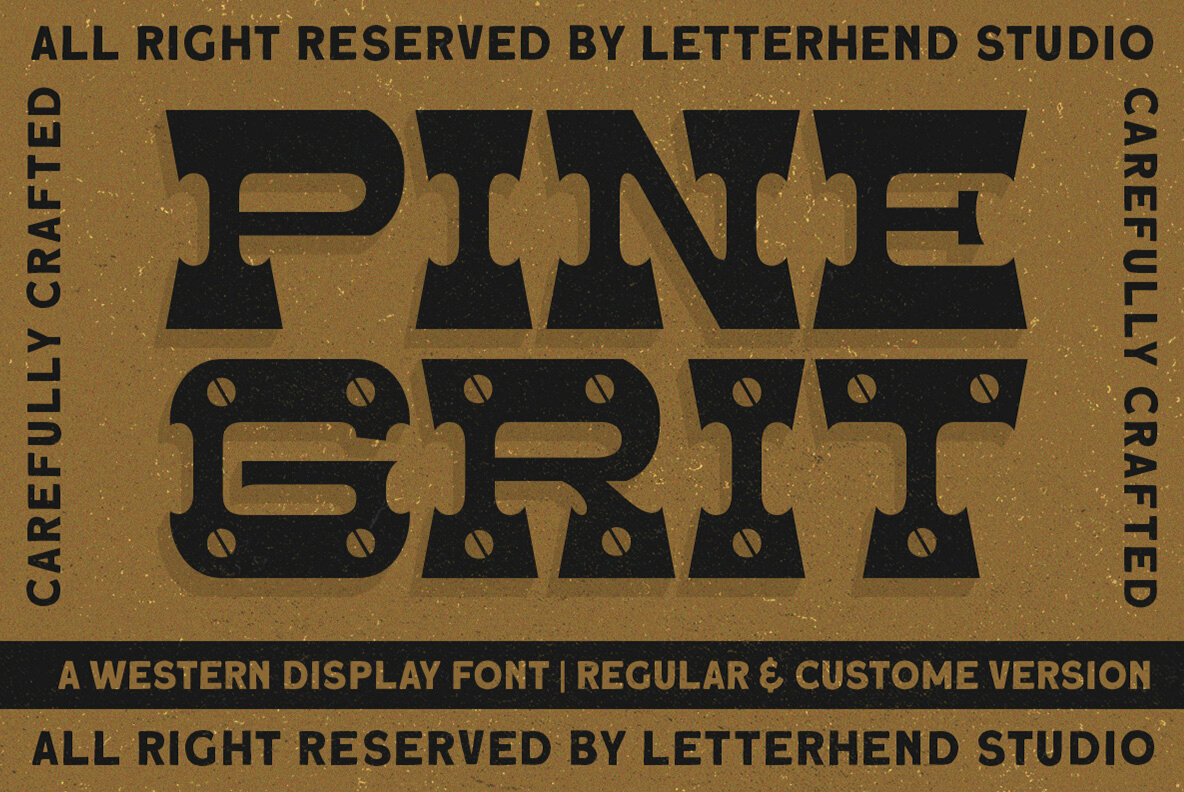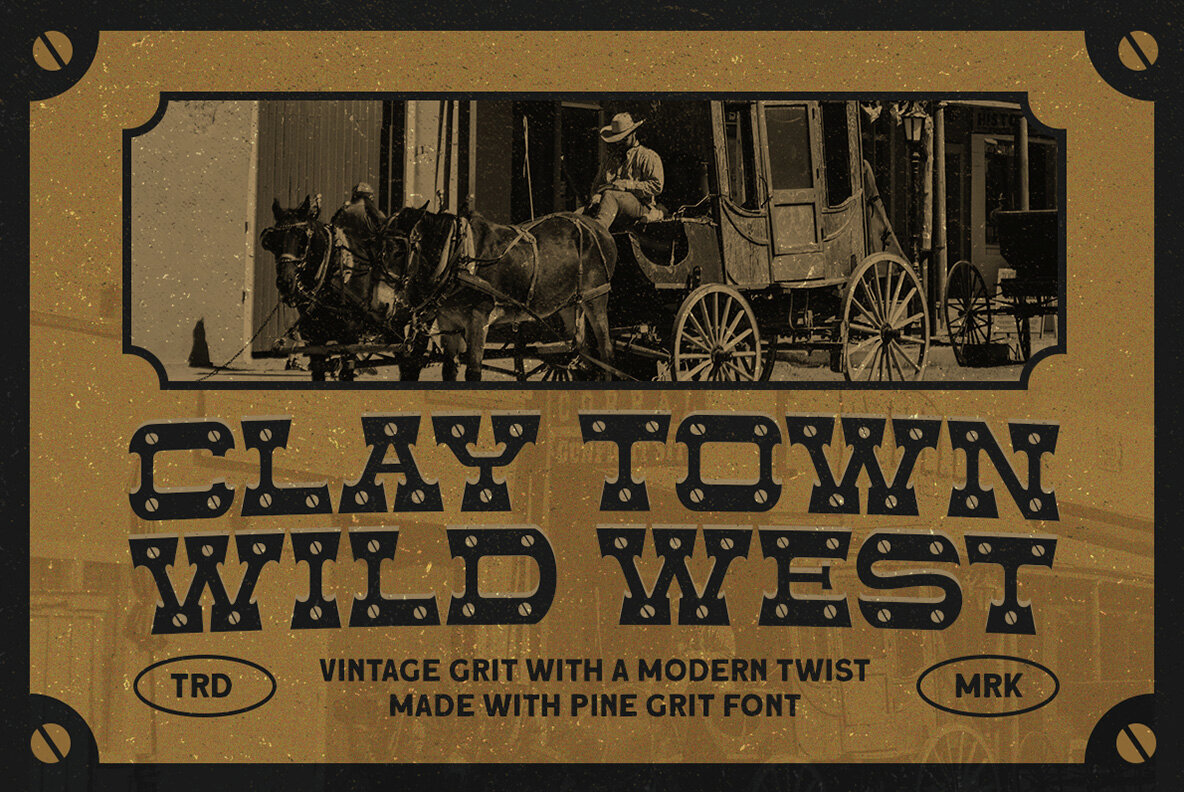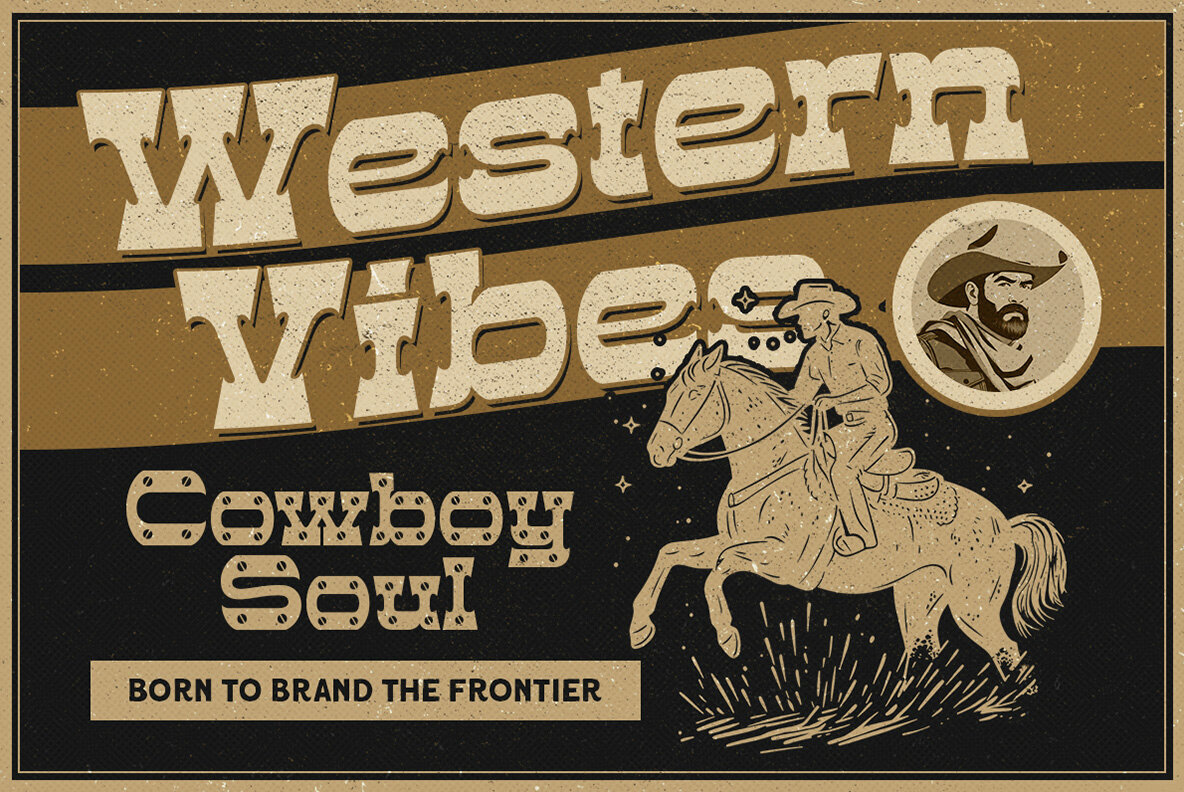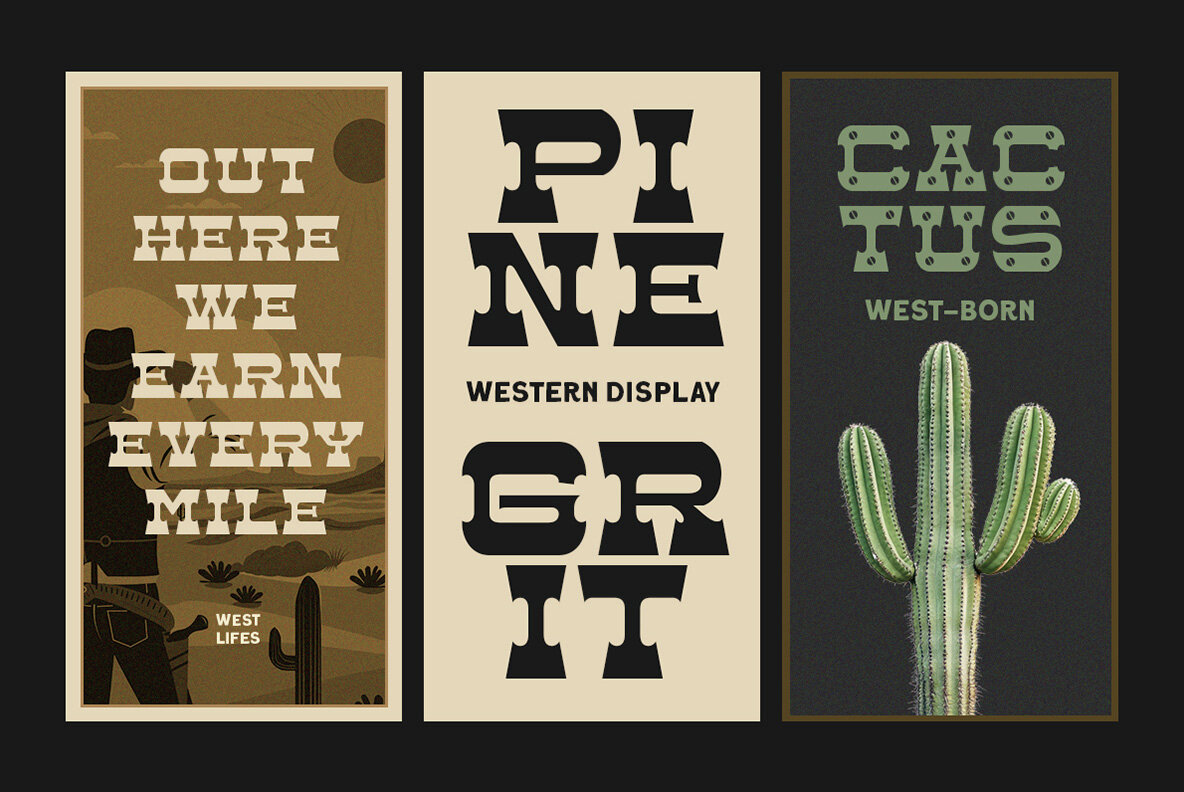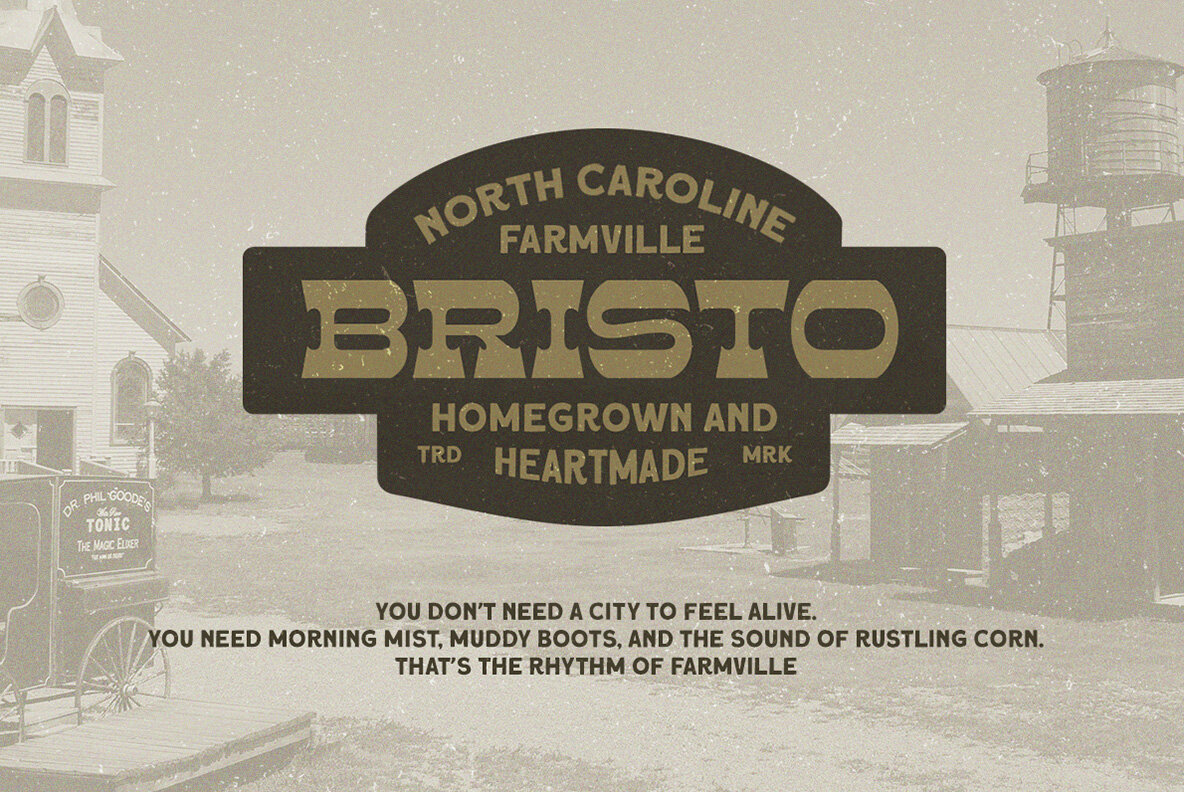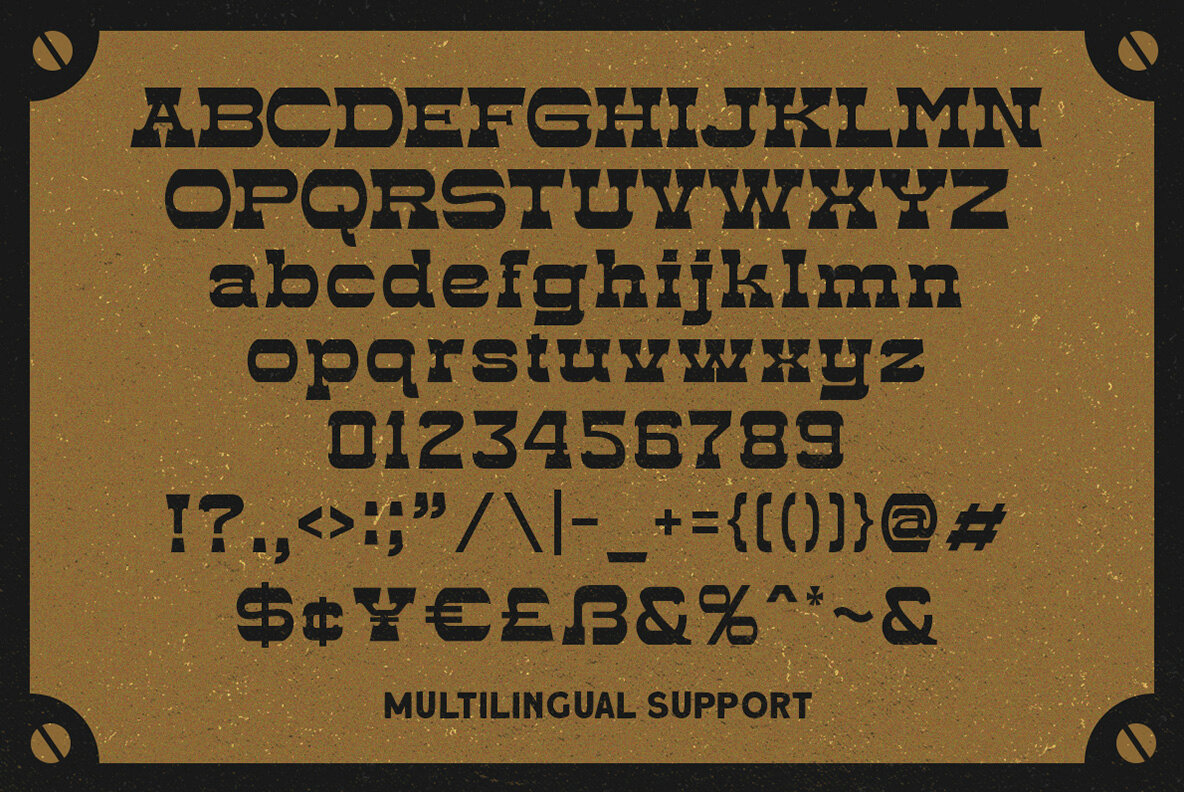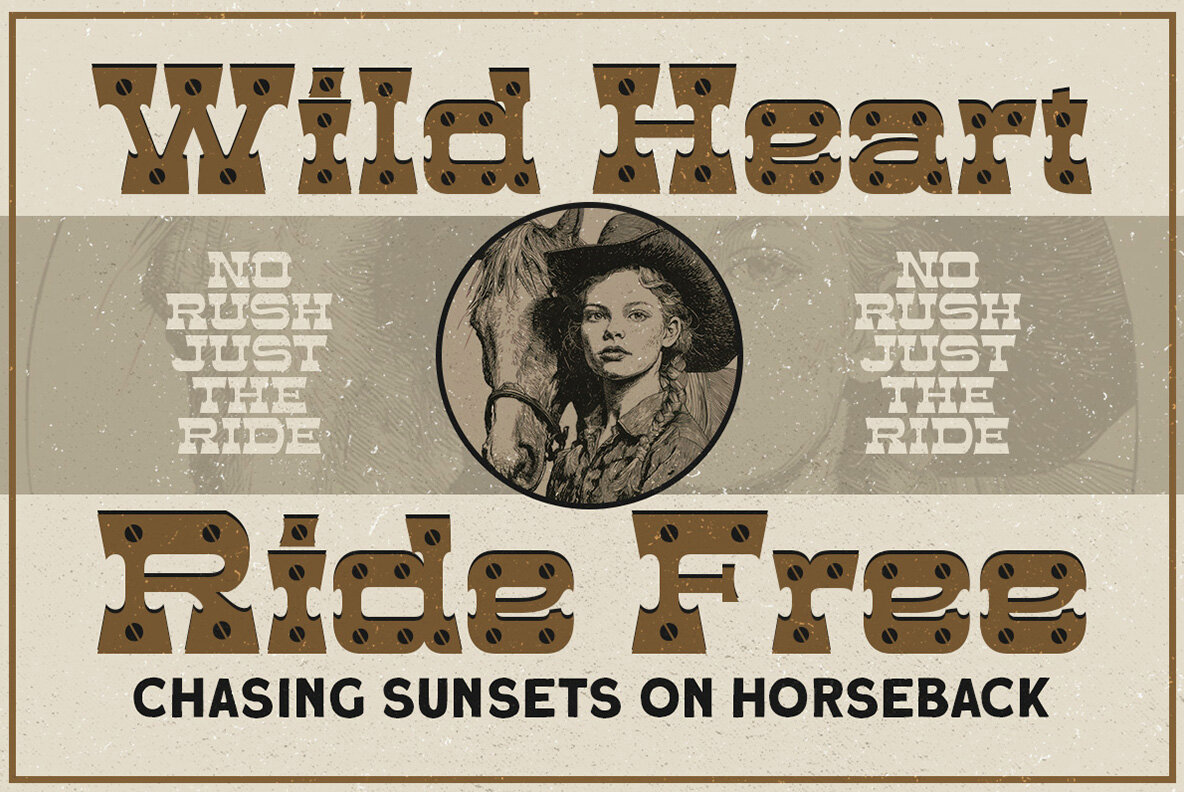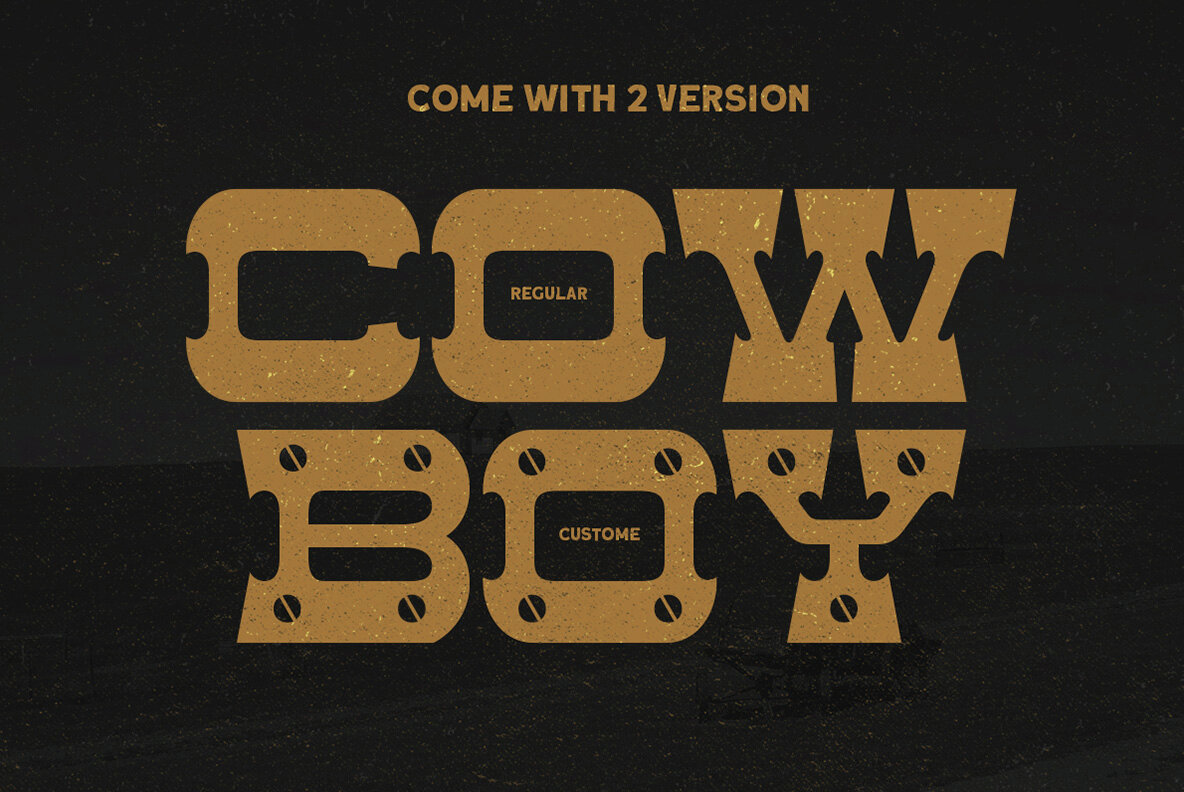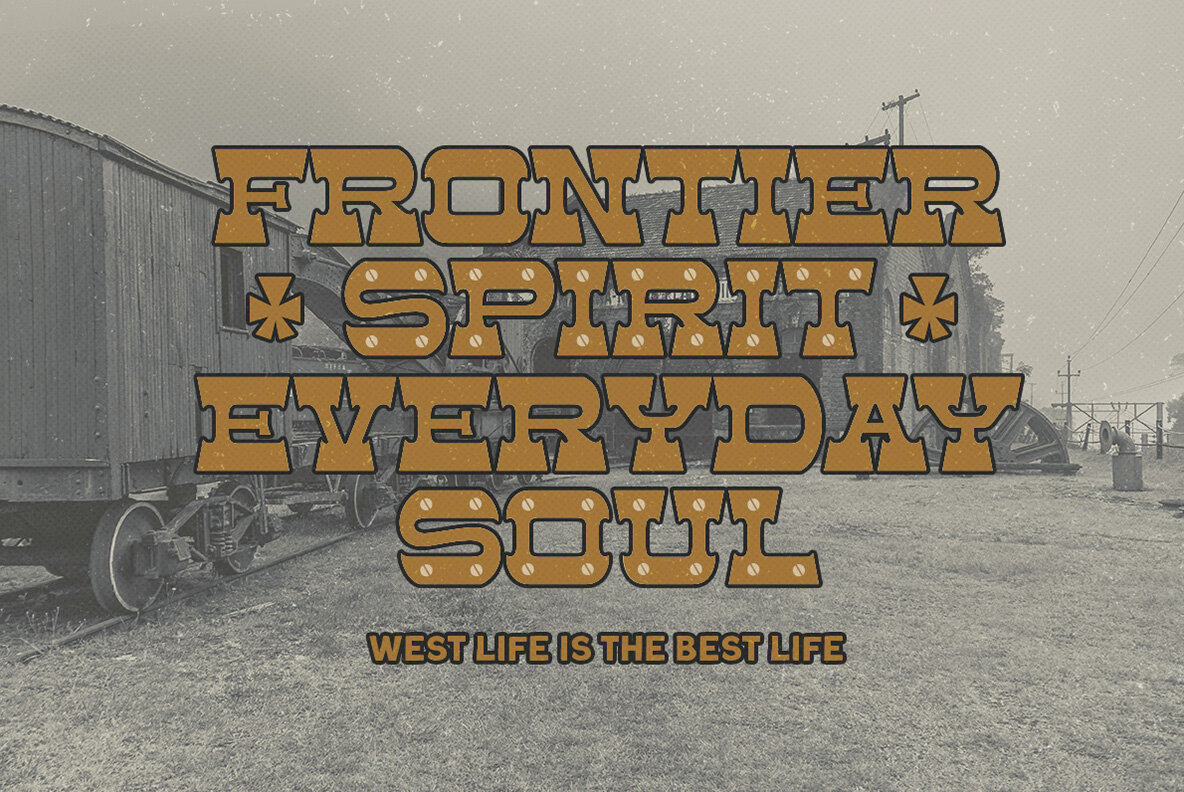
Pine Grit Font
Delve into the world of typography with Pine Grit, a Western display font rooted in the vintage allure of Americana and classic signage. Combining robust geometric forms with intricate decorative cuts, this typeface is designed to make your logos, posters, merchandise, and editorial titles resonate with a rugged, adventurous spirit. Whether you’re working on a Western theme or aiming for retro branding, Pine Grit delivers ample character and attitude. For best results, we recommend utilizing software that supports OpenType features and Glyphs panels, such as Adobe applications and Corel Draw, enabling you to explore all the font's stylistic potential.Pine Grit: Bold Typeface Inspired by Americana